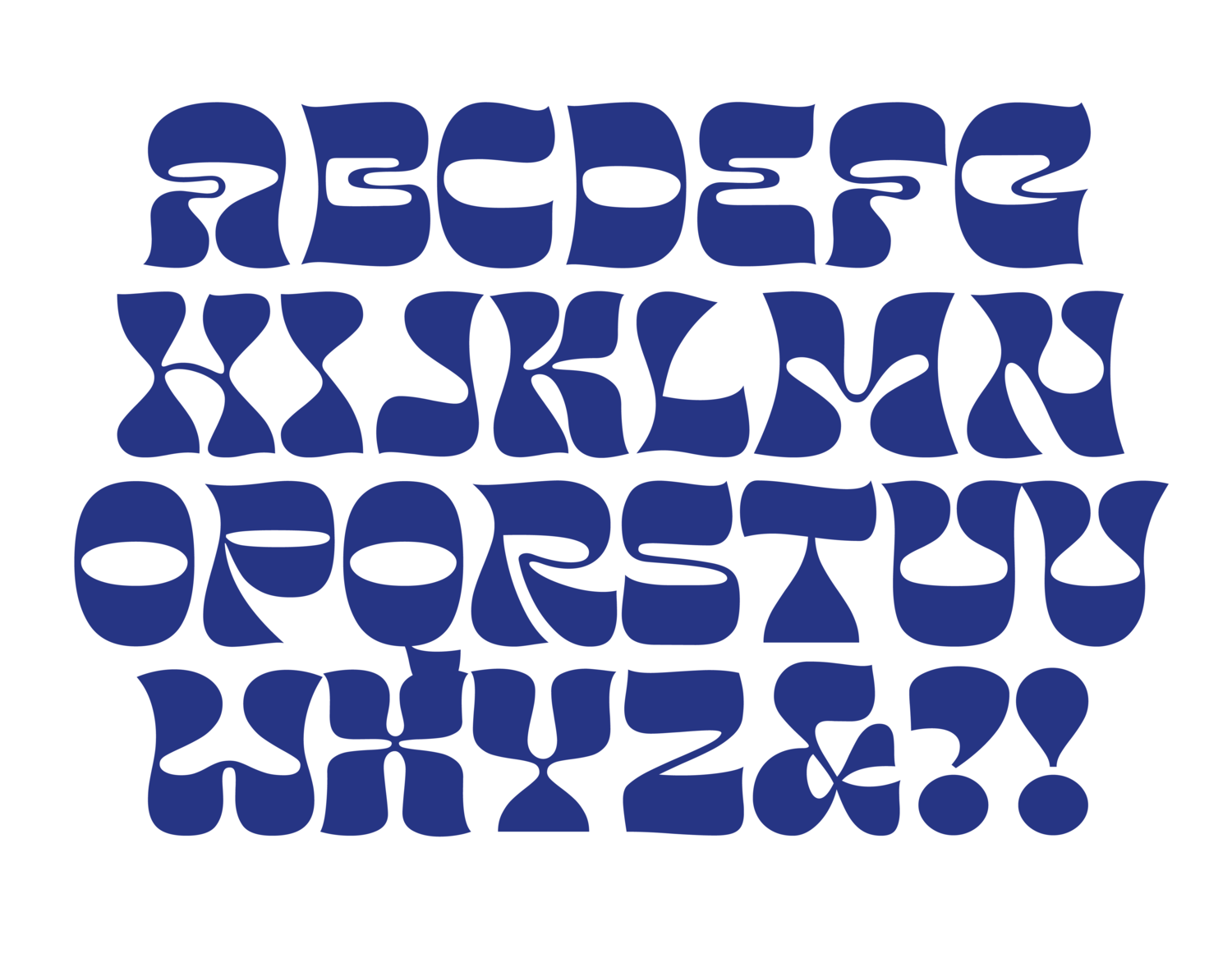
Janger (Upper/Lower)
Janger features a reverse contrast style with a retro and psychedelic look. This is a new entry into the wood type world, chosen for its uniqueness and it works beautifully!
The typeface is created by Kadek from Creative Media Lab.